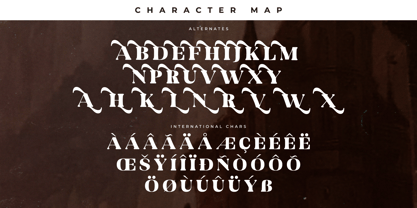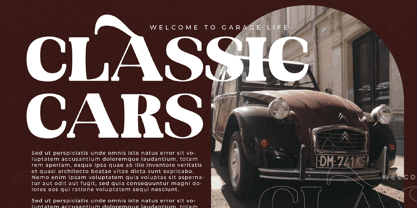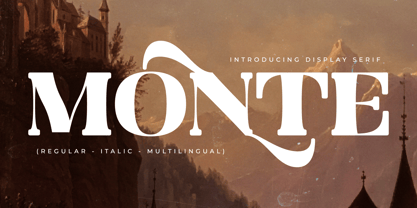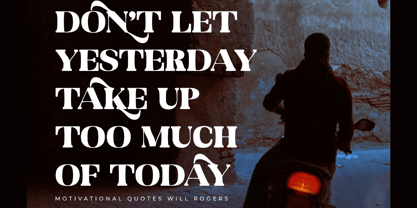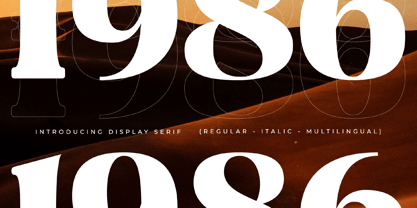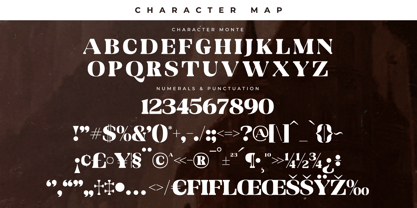
The Monte Font Family was designed by Heru Utama Putra and published by Letterena Studios. Monte contains 2 styles and family package options. More about this family
Monte is a serif modern and classic typeface that has its own unique style & modern look. This typeface is perfect for an elegant & luxury logo, book or movie title design, fashion brand, magazine, clothes, lettering, quotes, and more.